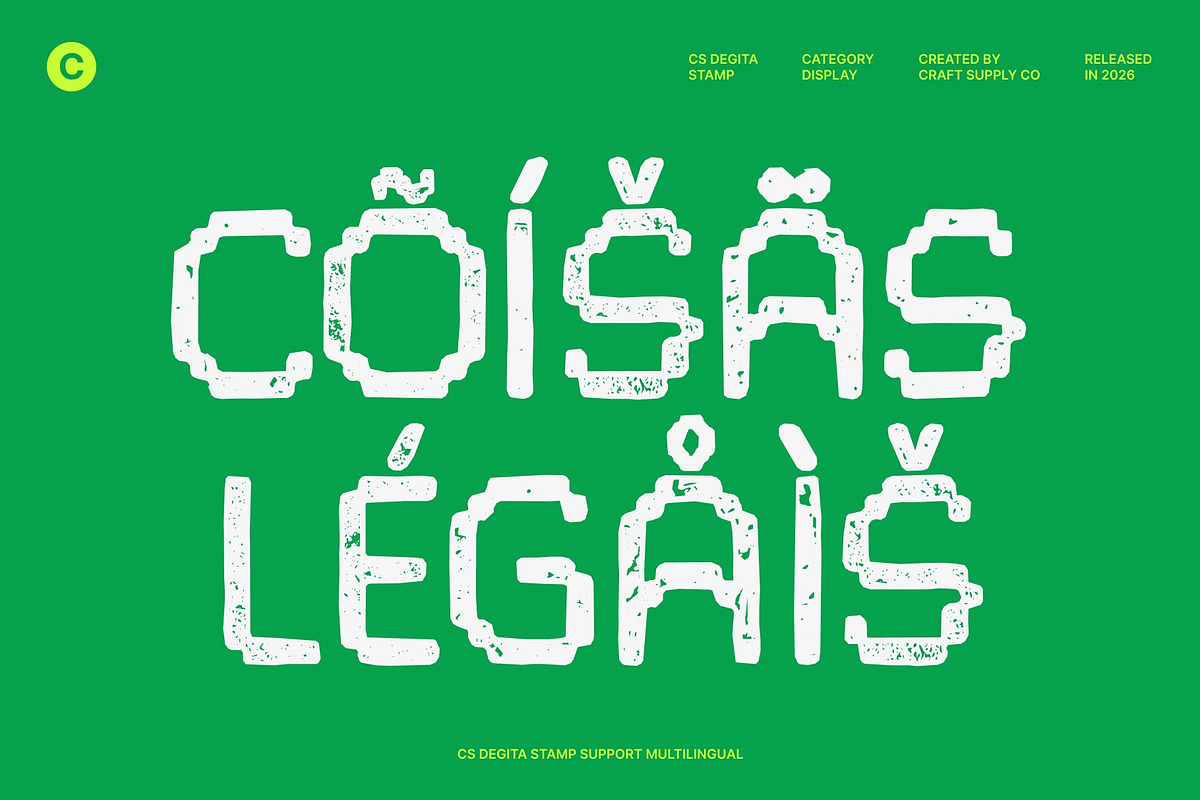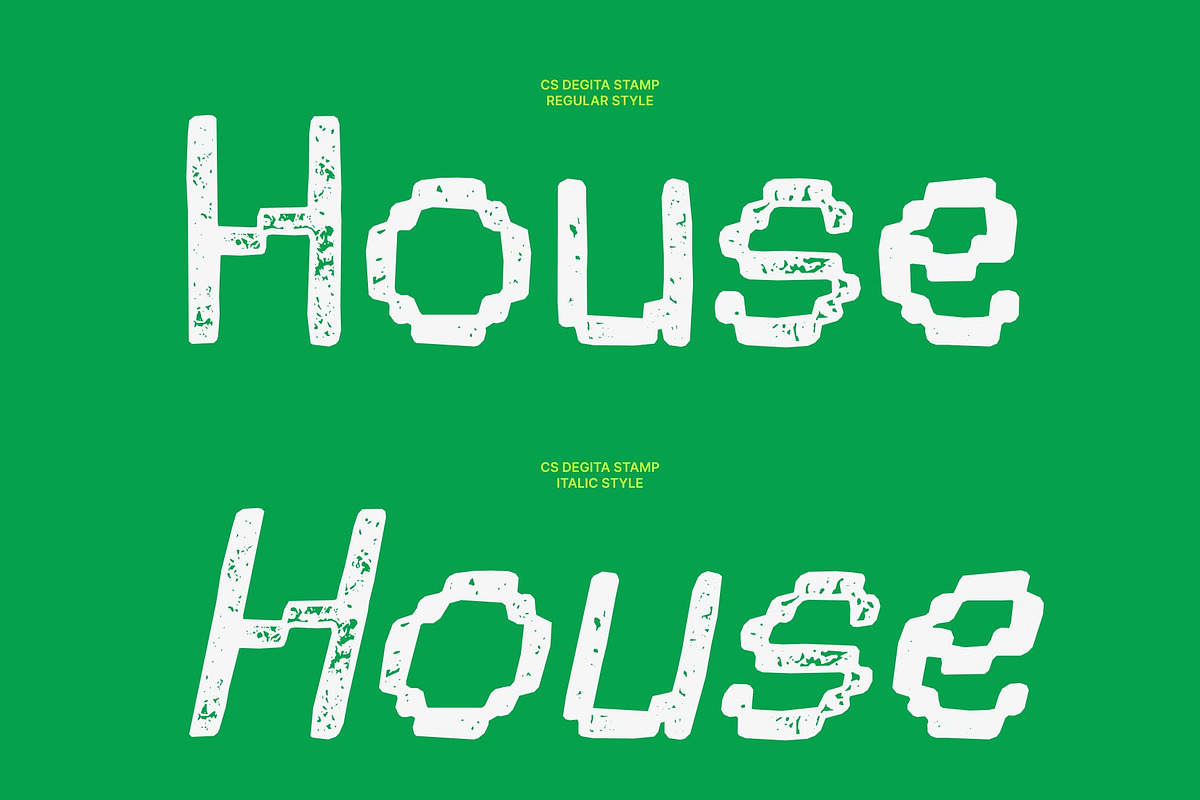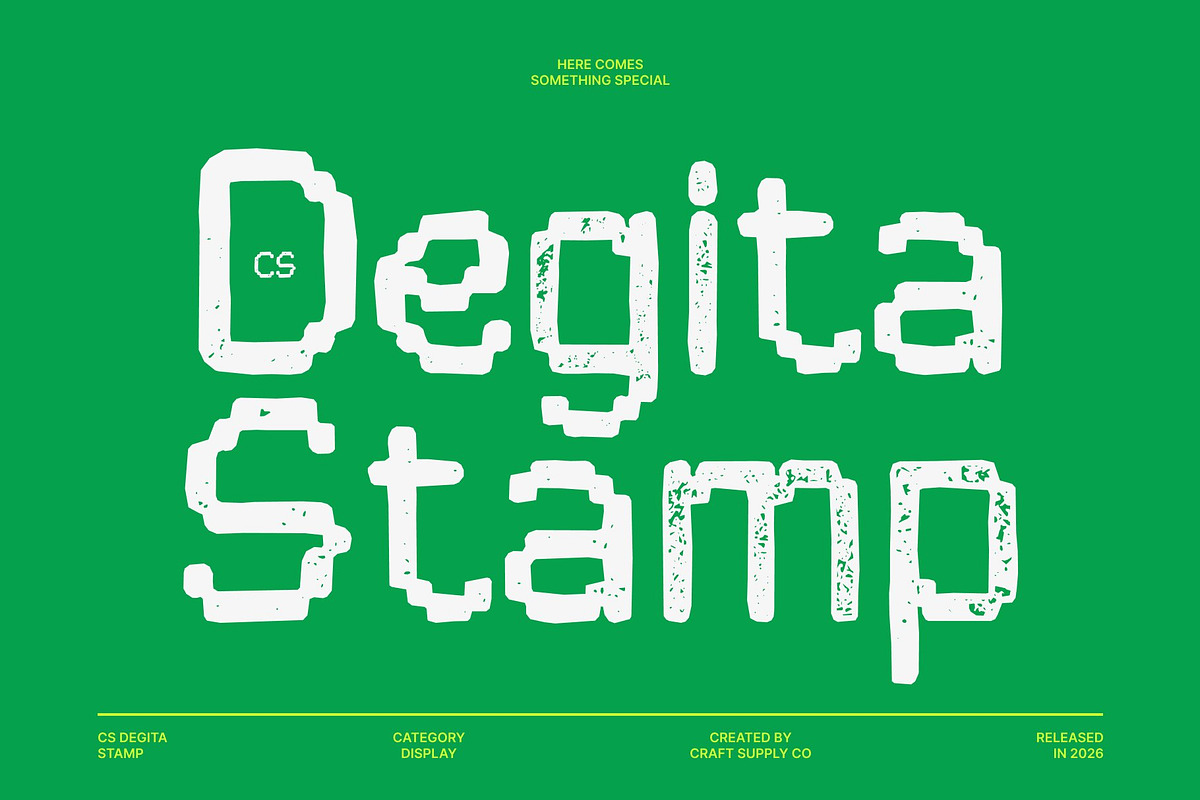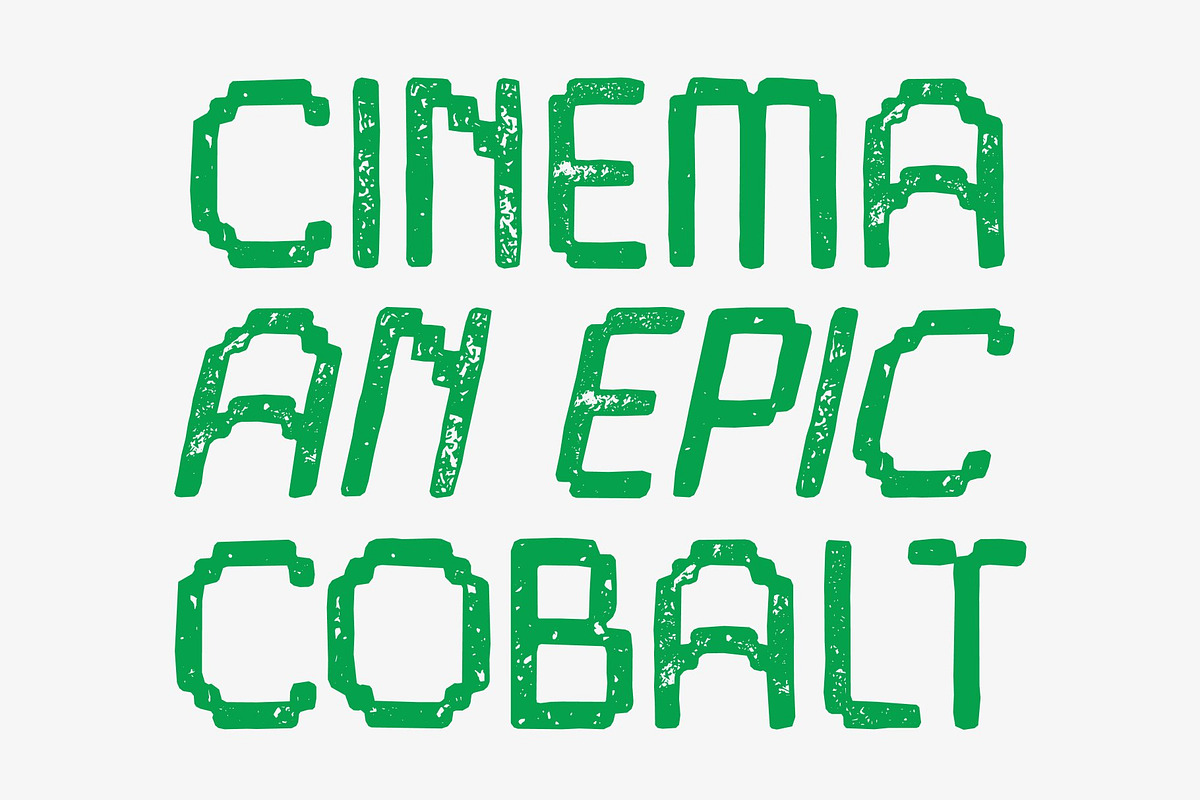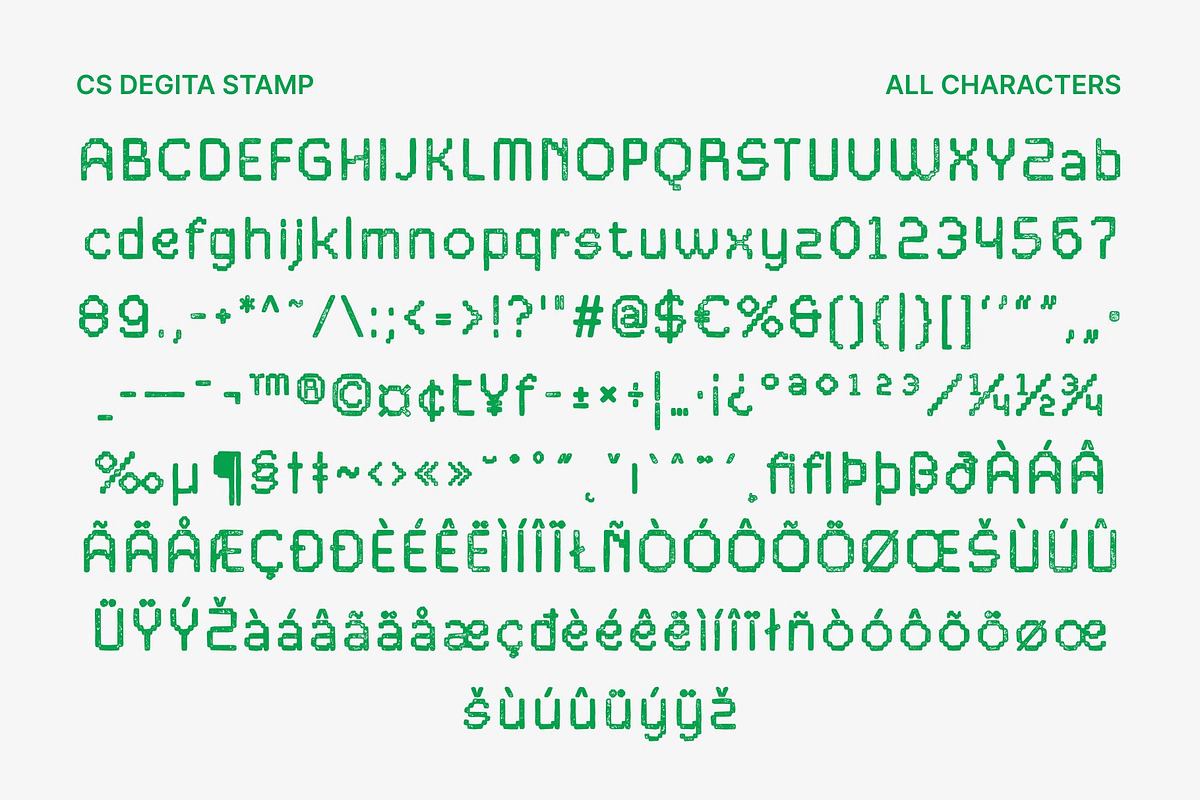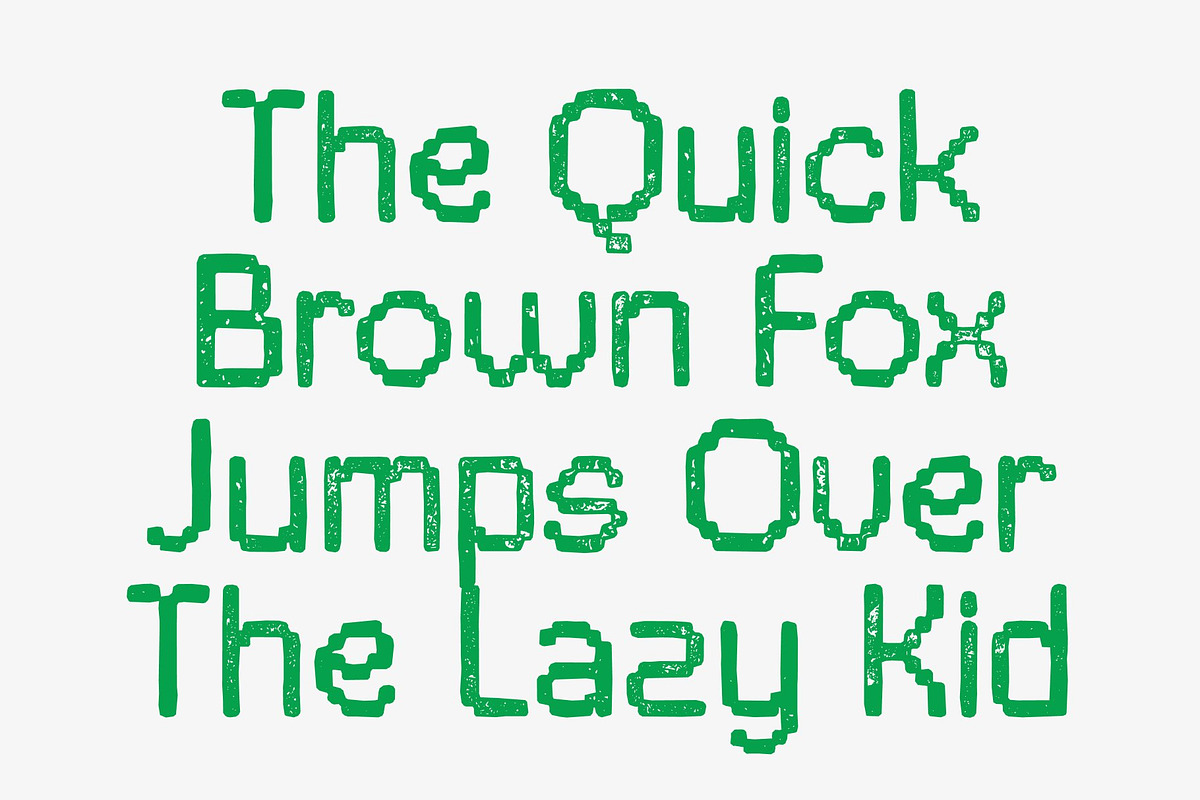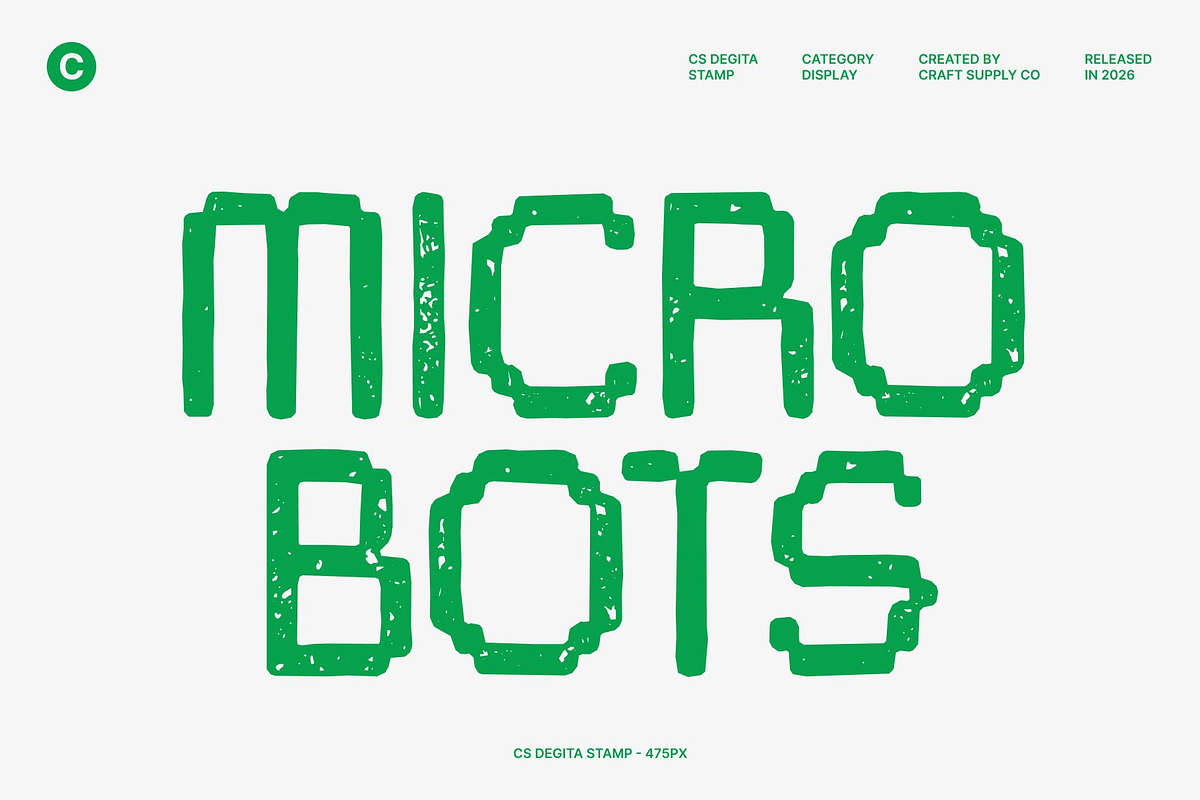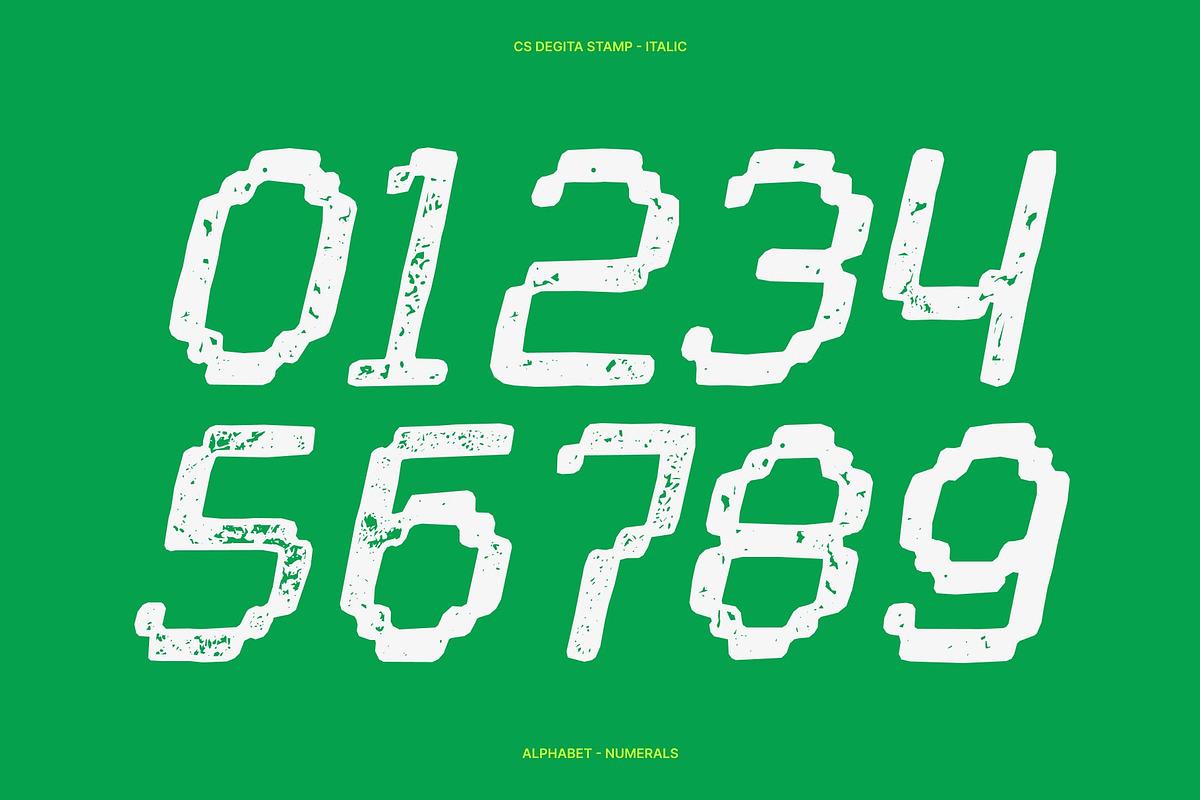
CS Degita Stamp
CS Degita Stamp – Pixel Font with Retro Digital Texture
Retro Pixel Style Inspired by Early Screens This is a pixel display font designed to capture the grid-based look of classic digital monitors and early video game typography. Its crisp square shapes, sharp corners, and precise geometry recreate the nostalgic charm of 1980s–1990s computing and arcade aesthetics.
Stamp Texture for Vintage Character Enhanced with a subtle stamp effect, the font gains a tactile, slightly worn appearance that adds warmth and authenticity. The textured finish softens the rigid pixel structure, creating a perfect balance between mechanical precision and handcrafted vintage appeal.
Clear and Functional at Small Sizes Built for readability, this font performs exceptionally well in compact layouts. Its clean pixel construction keeps text legible and structured, making it suitable for both decorative and functional uses in digital and print formats.
Ideal for Retro Tech, Gaming, and Digital Branding Perfect for retro-themed graphics, gaming visuals, tech branding, posters, UI elements, and nostalgic merchandise. This font blends vintage digital charm with modern clarity, giving your designs a timeless pixel-powered personality.
CS Degita Stamp Regular
CS Degita Stamp Italic